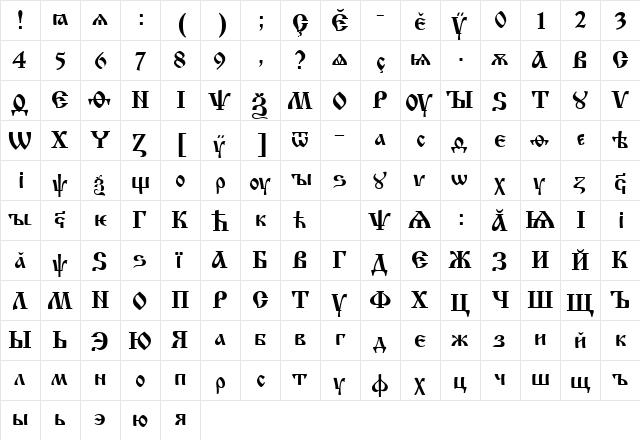
Izhitsa Chu CNP Normal Font Preview
Izhitsa Chu CNP Normal
Design Context for Izhitsa Chu CNP Typeface
Izhitsa Chu CNP is a composed and adaptable typeface that performs quietly and consistently across a wide range of design contexts.